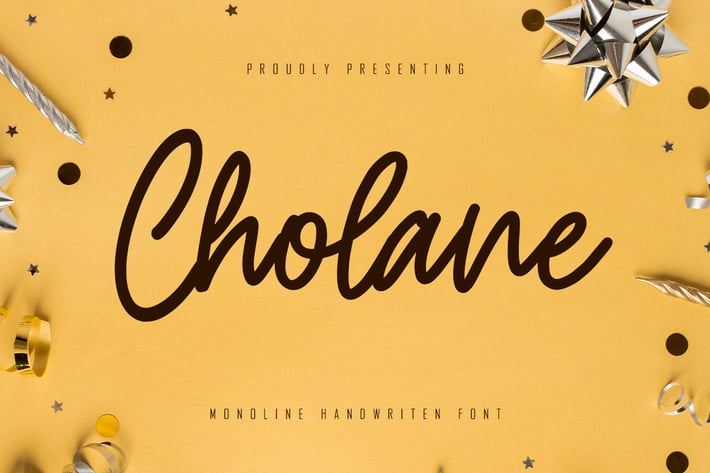
Cholane - Monoline Handwritten Font
Cholane is a Monoline Handwritten Font combined with a script so it looks elegant, there are ligature features in it, suitable to support a variety of designs and your business